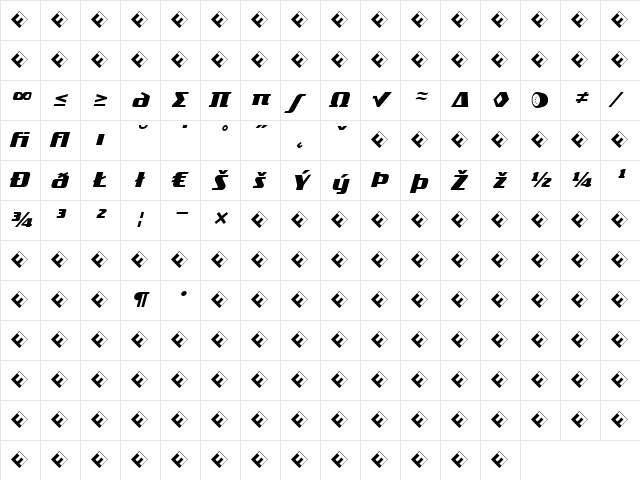
TradeMarker Bold Italic Font Preview
Design Context for TradeMarker Typeface
TradeMarker takes a measured approach to typography — its balanced proportions and neutral character make it a reliable workhorse for both digital and print work. Its italic angle brings a sense of urgency and motion to the letterforms. Its bold stroke weight gives it real presence on the page.
Pro Tip: Try TradeMarker for annotation and caption copy alongside an upright companion — the contrast in angle creates a dynamic but ordered typographic system.